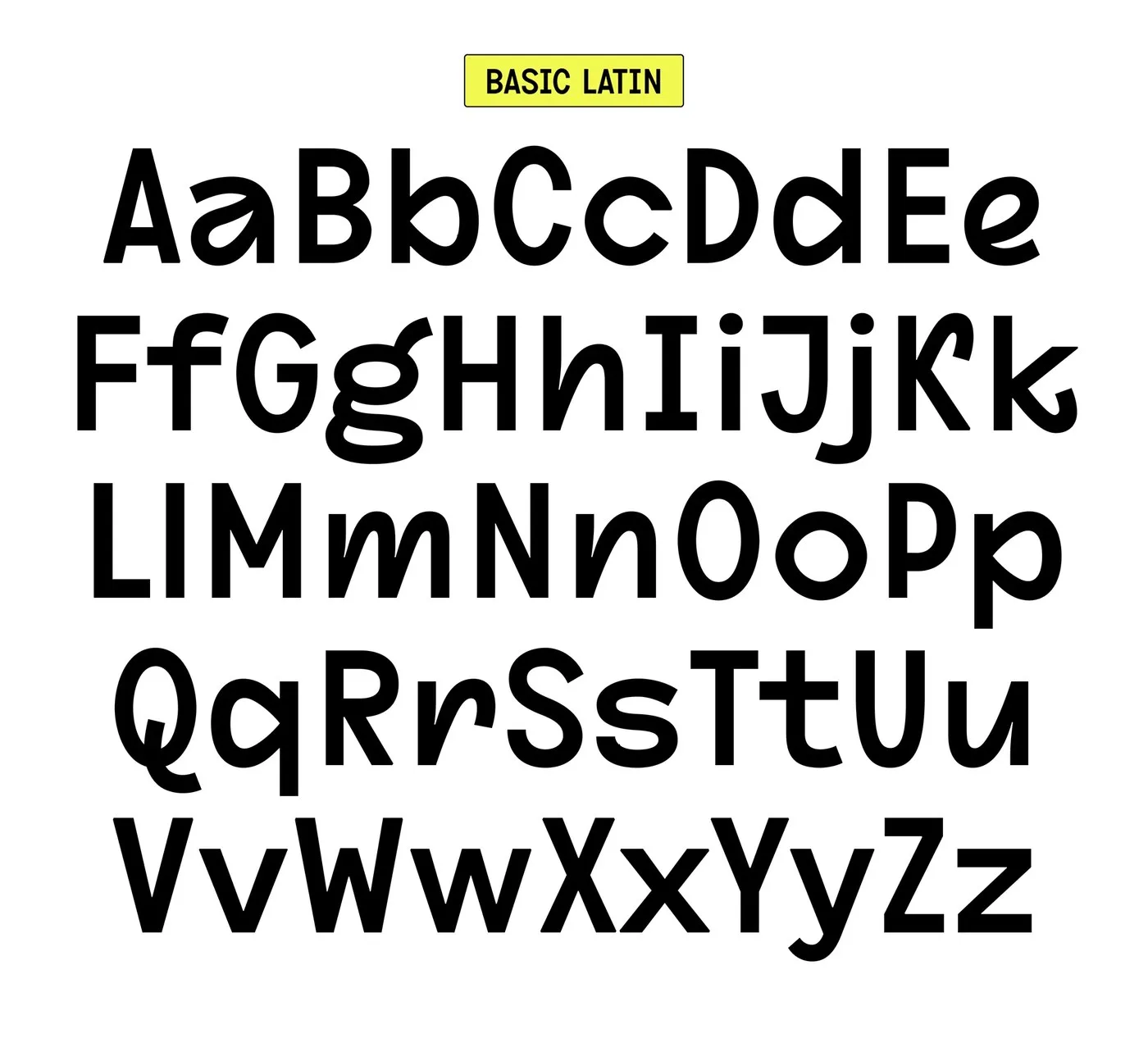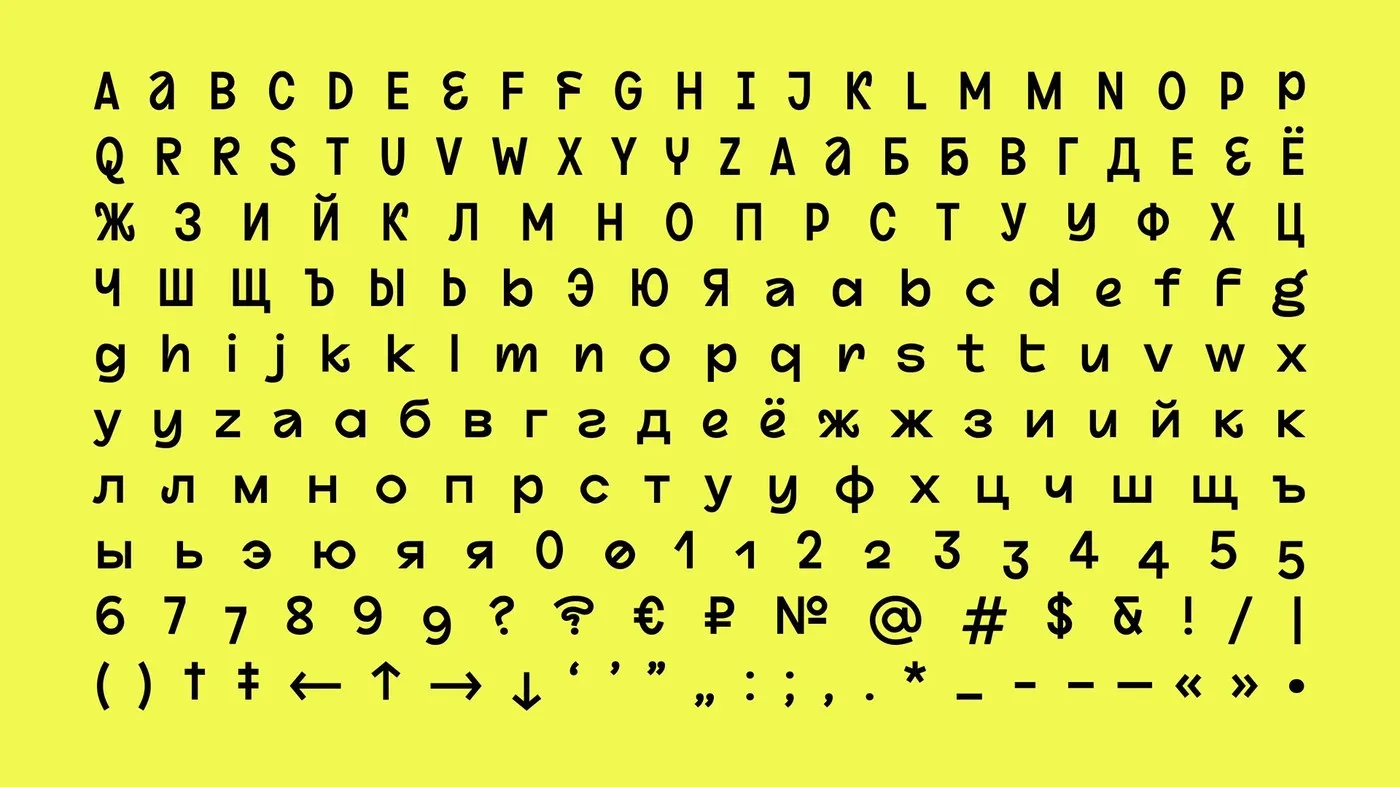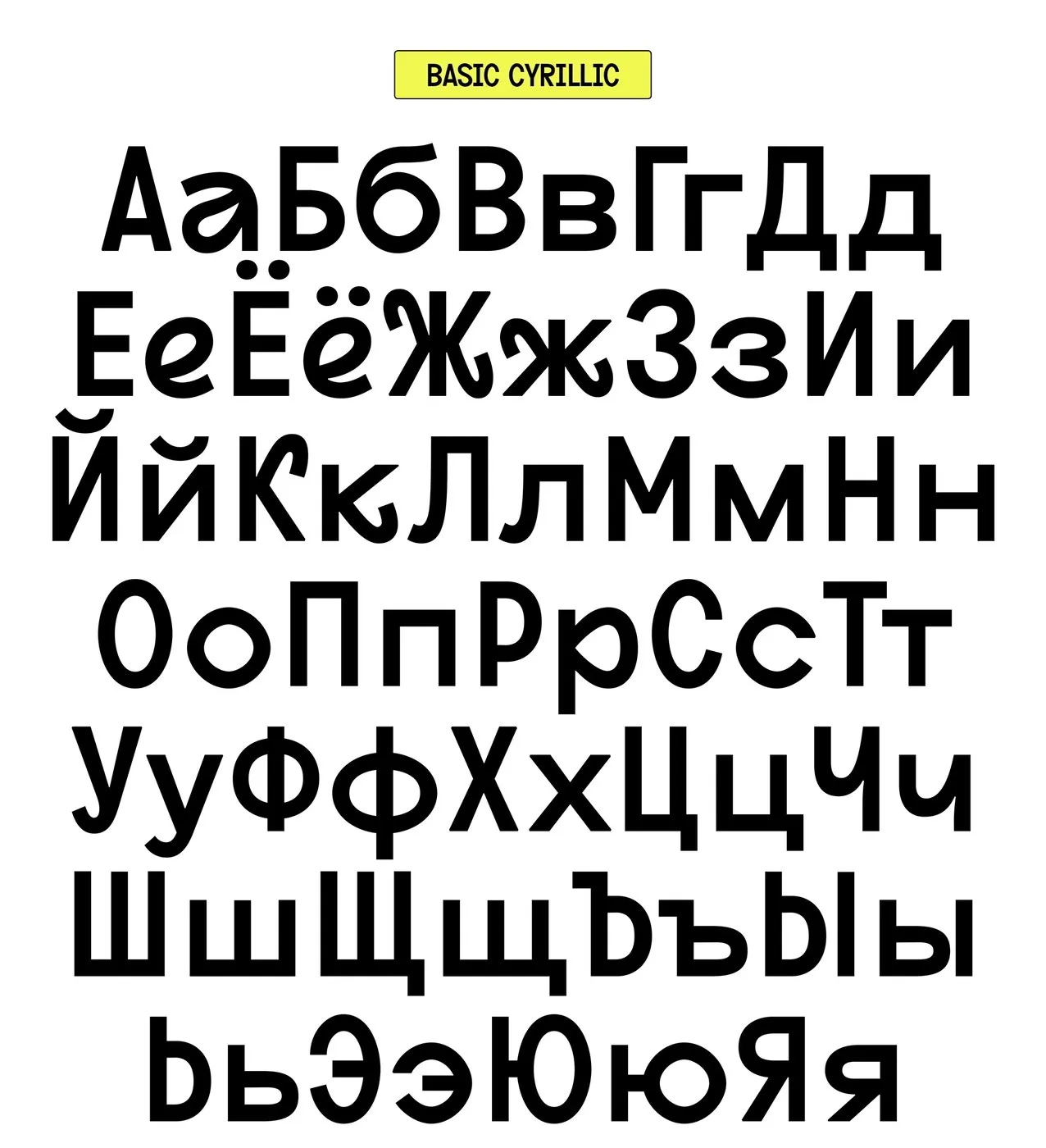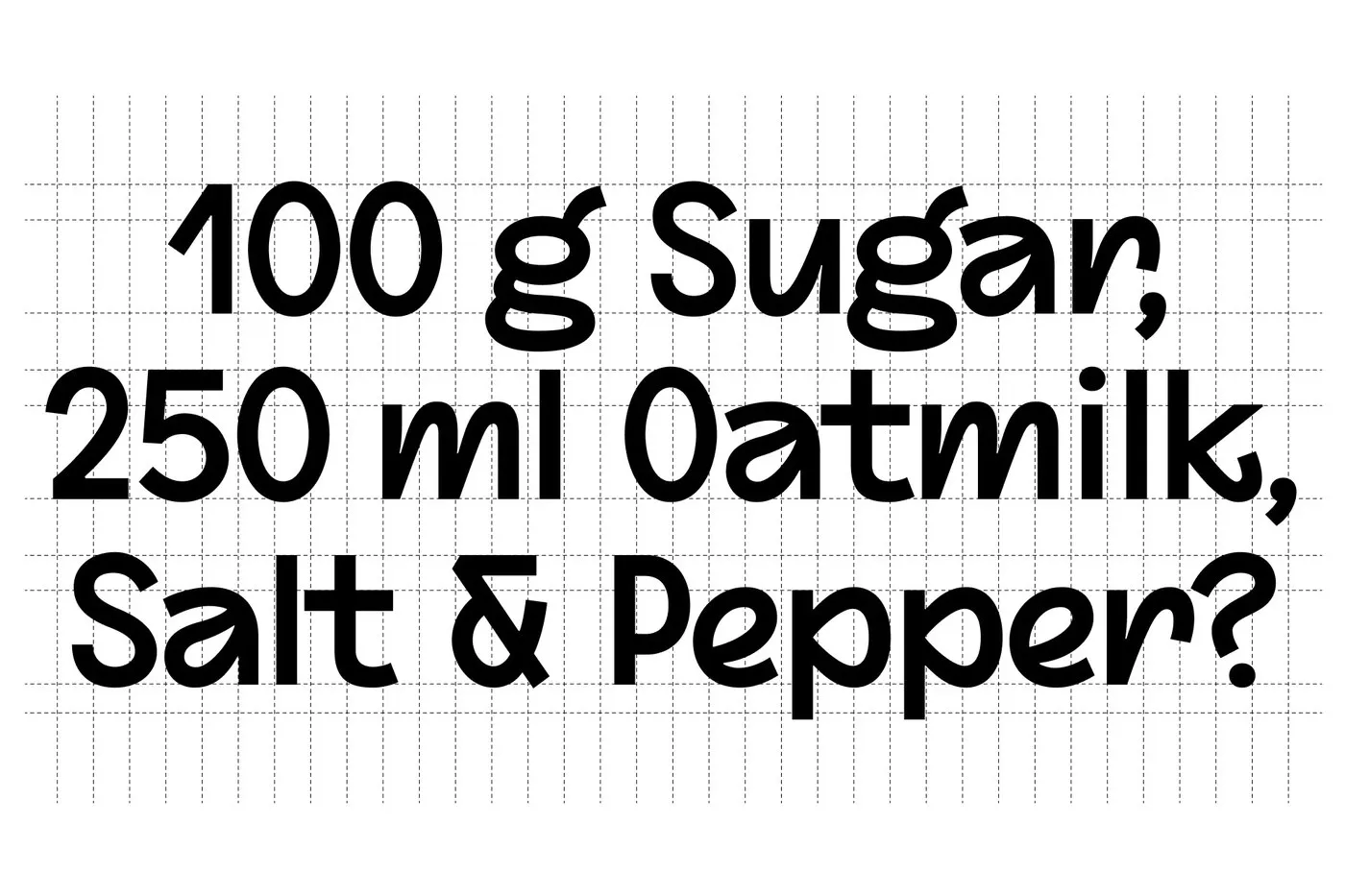
ESH Typeface: A Geometric, Retro-Inspired Font by ESH Gruppa crafted a custom font named ESH Typeface to anchor its brand identity. The letterforms seamlessly blend crisp geometric structures with playful, expressive curves. Featuring extra-heavy stroke weights, the font delivers a bold visual punch across any layout. Retro-inspired serifs and smooth, rounded corners add plenty of character, while solid color blocks paired with fine keylines create a rhythmic contrast—allowing individual characters to easily double as standalone graphic elements.
To balance out the visual weight of the heavy letterforms, layouts rely on a strict modular grid system. Tucking tiny caption lines right next to massive display characters establishes an ultra-clear visual hierarchy. Subtle adjustments to character widths break away from standard grotesque formulas, turning ordinary layouts into dynamic typographic showcases.
On digital screens and motion posters, the edges stay razor-sharp, almost like stencil cuts. A sleek, minimalist black-and-white palette keeps the focus entirely on the silhouette of each letterform. The project bridges the classic aesthetic of traditional print with the demands of modern UI design. Plus, ESH Gruppa gathered feedback directly from their Telegram community to fine-tune each glyph outline for a flawless finish.
ESH Typeface: Bộ font đậm chất hình học và hoài cổ từ ESH Gruppa
ESH Gruppa đã tự thiết kế một bộ font custom mang tên ESH Typeface để làm nền tảng cho hệ thống nhận diện thương hiệu của chính mình. Các con chữ ở đây kết hợp giữa cấu trúc hình học sắc nét và những đường cong linh hoạt. Với nét chữ (stroke weight) rất dày, bộ font tạo ra ấn tượng thị giác mạnh mẽ ngay trên trang layout. Phần chân chữ cùng các góc bo tròn mang đậm ảnh hưởng của phong cách retro. Sự kết hợp giữa các mảng màu đặc và đường keyline mảnh tạo nên sự tương phản đầy nhịp điệu, giúp từng chữ cái hoàn toàn có thể hoạt động độc lập như một phần tử đồ họa.
Để cân bằng lại độ nặng của các ký tự, layout được xây dựng trên một hệ thống lưới (modular grid) chặt chẽ. Việc xếp các dòng chú thích nhỏ xíu ngay cạnh những chữ cái display kích thước khổng lồ giúp phân cấp thông tin (hierarchy) cực kỳ rõ ràng. Độ rộng các ký tự cũng được thay đổi nhẹ để thoát khỏi sự rập khuôn của mô hình grotesque thông thường, biến các layout tiêu chuẩn thành những bài phối chữ vô cùng sống động.
Ở các ứng dụng kỹ thuật số hay poster chuyển động, đường nét của chữ trông sắc lẹm như được cắt stencil. Bảng màu đen trắng tối giản giúp người xem tập trung hoàn toàn vào phom dáng của chữ. Dự án này vừa giữ được tinh thần của các thiết kế in ấn cổ điển, vừa dễ dàng đưa vào thiết kế giao diện hiện đại. Đặc biệt, ESH Gruppa đã thu thập phản hồi từ cộng đồng trên kênh Telegram của họ để tinh chỉnh lại khung nét glyph cho hoàn thiện nhất.